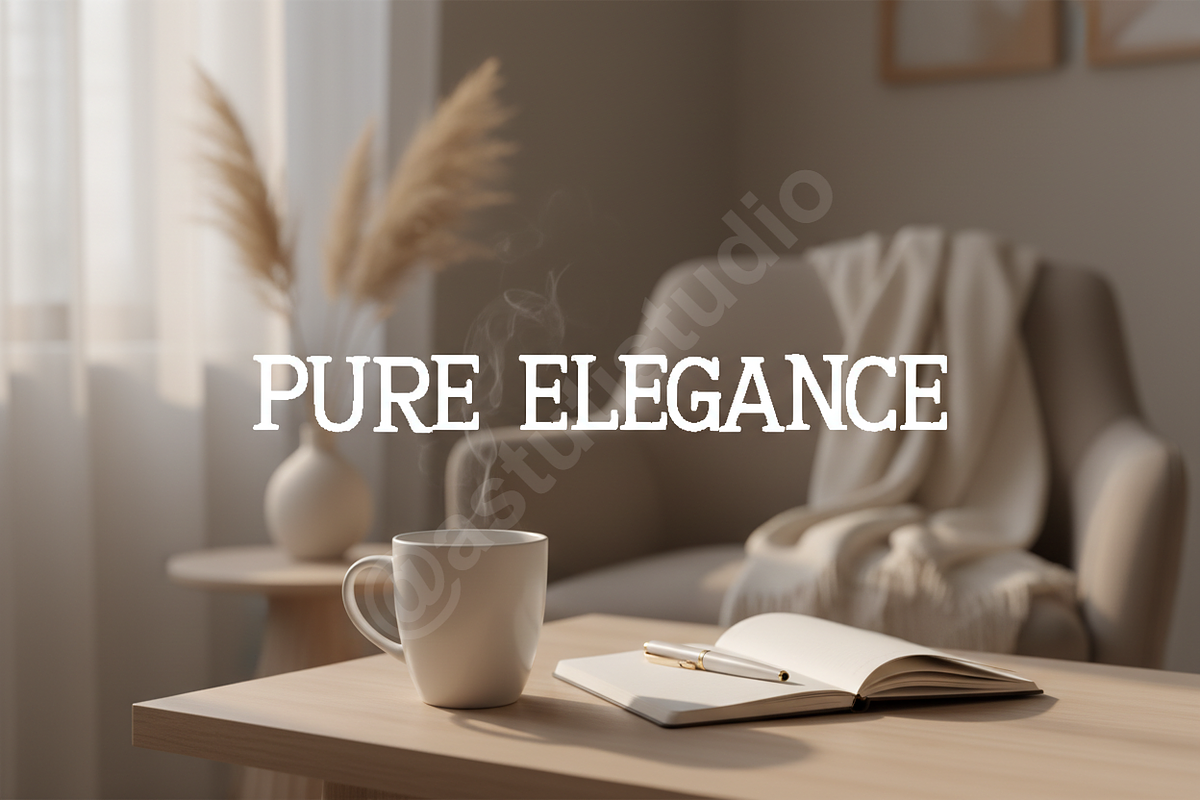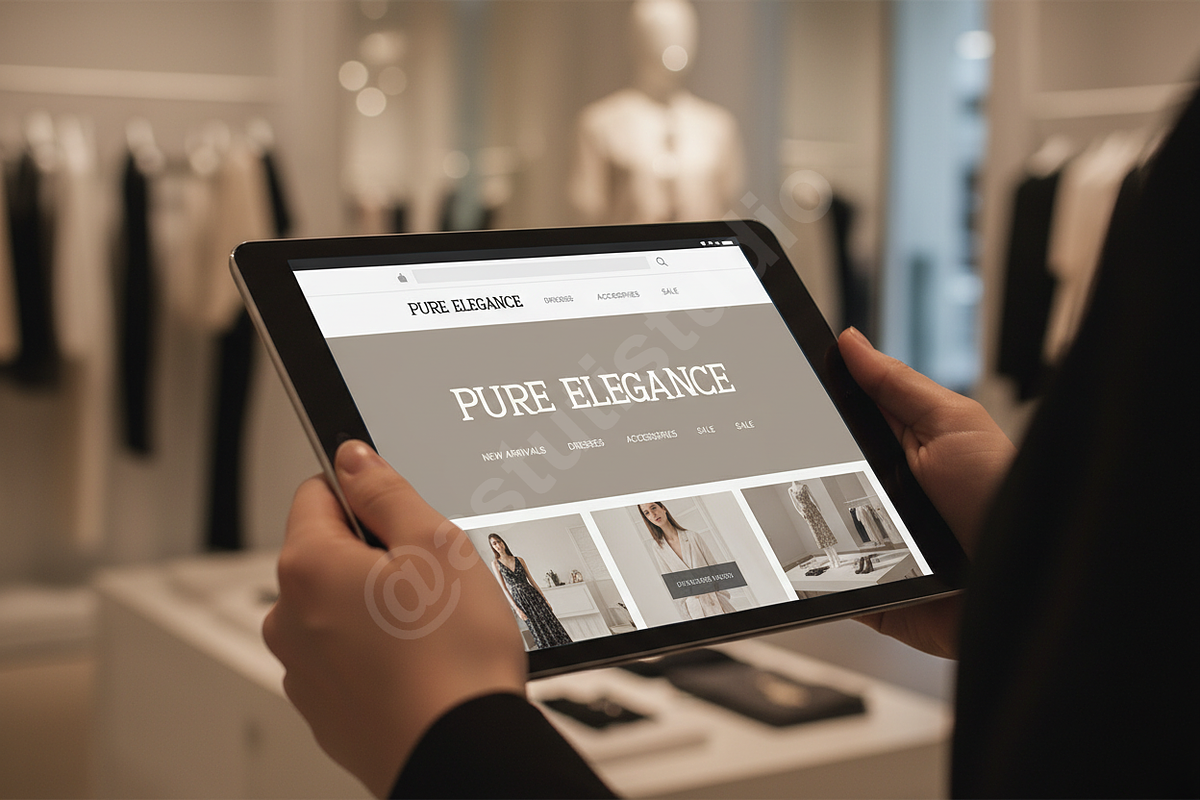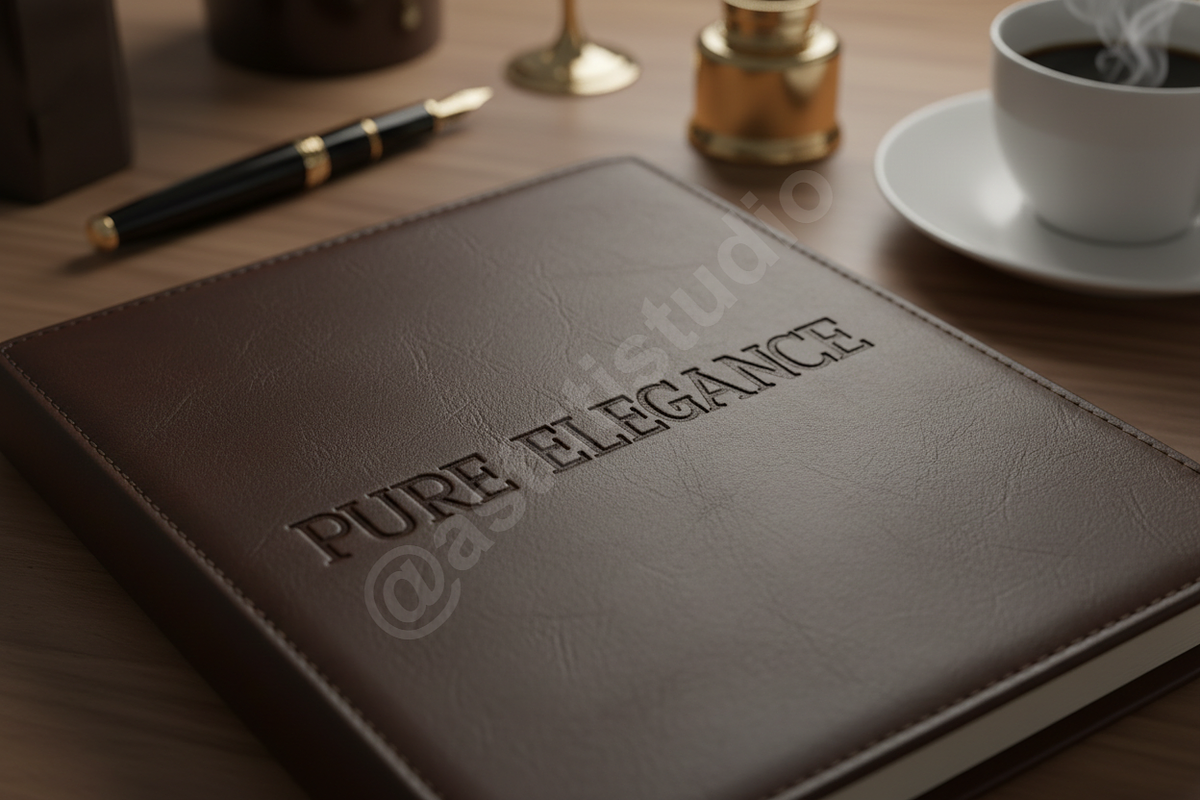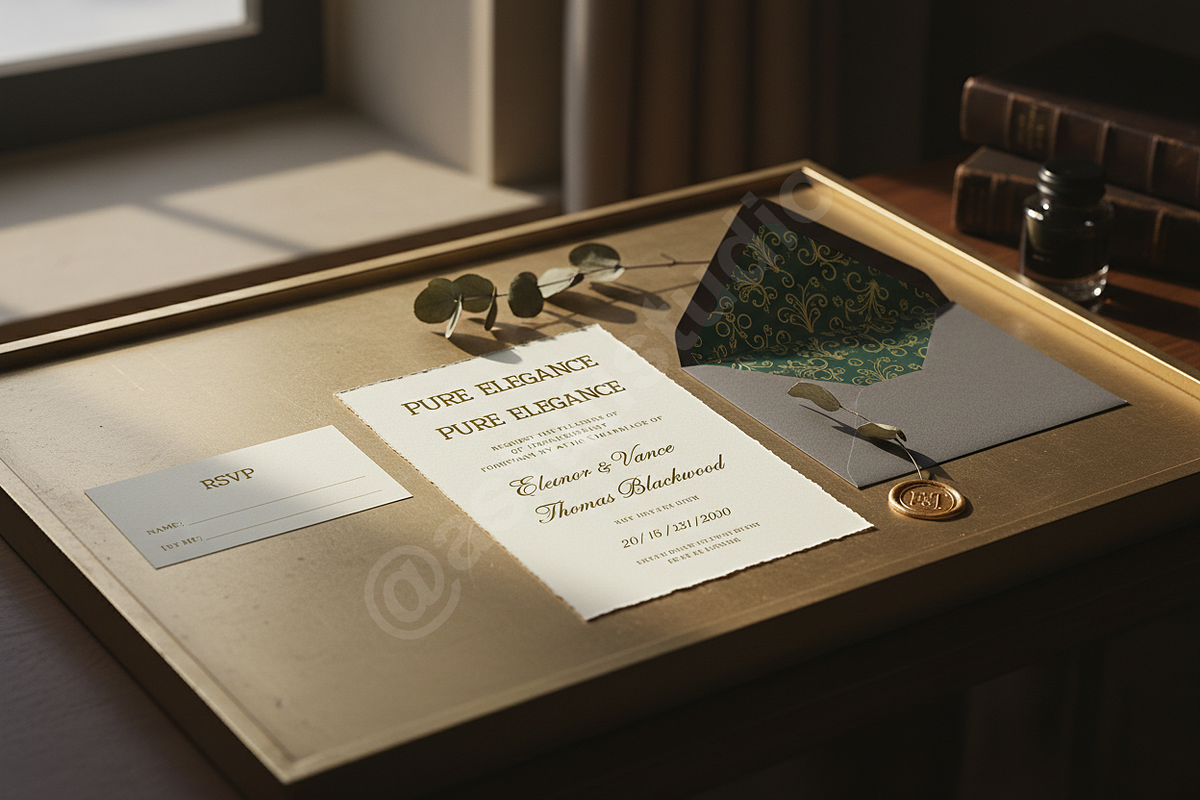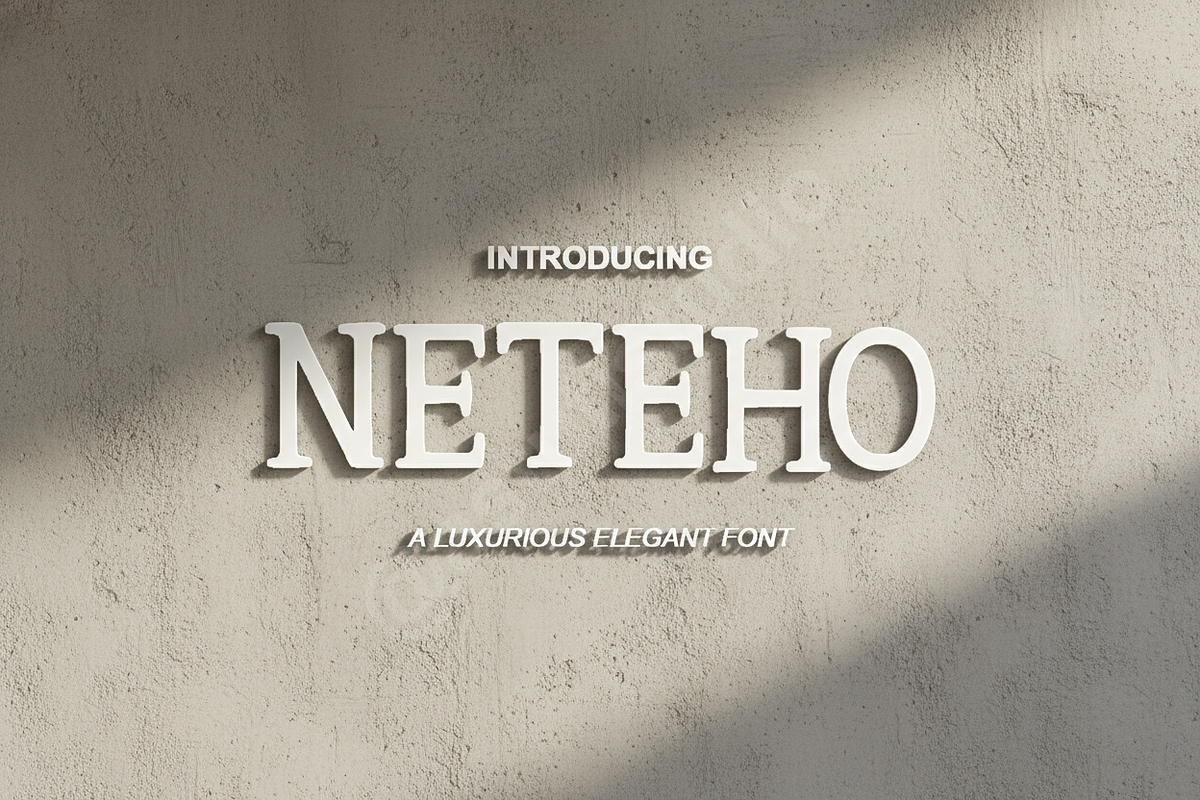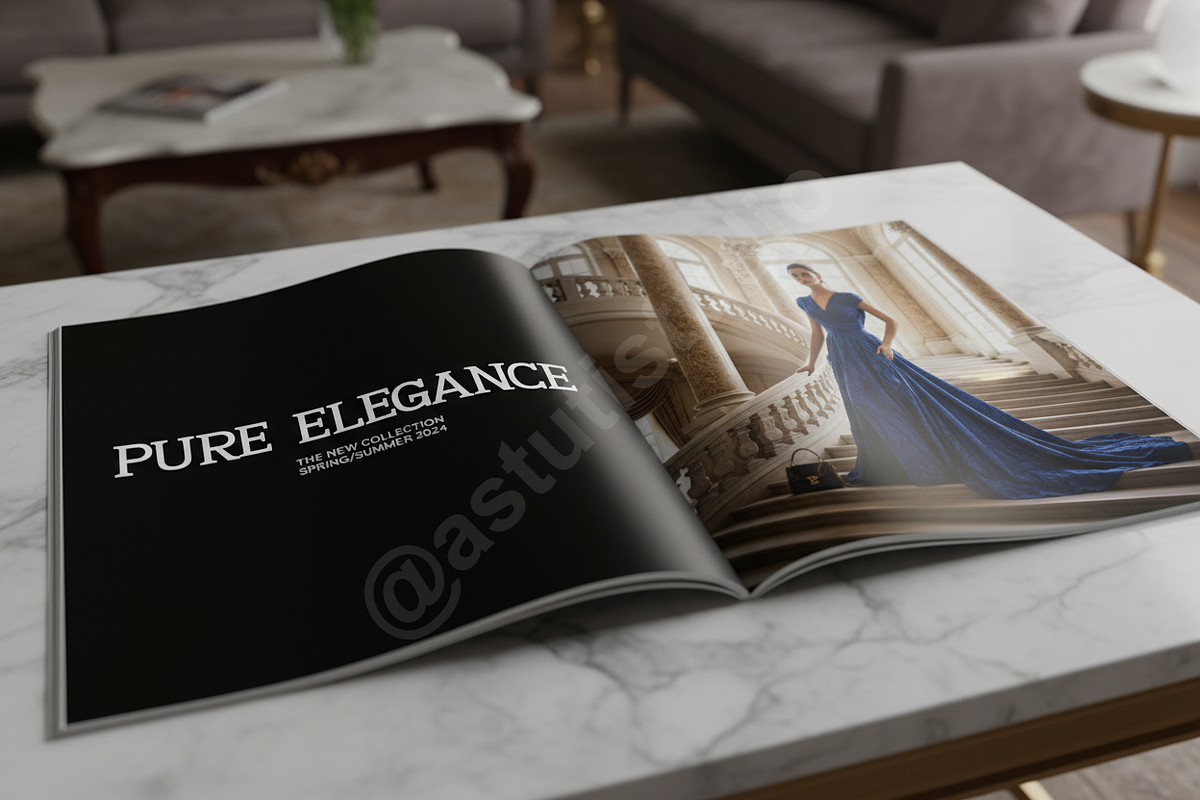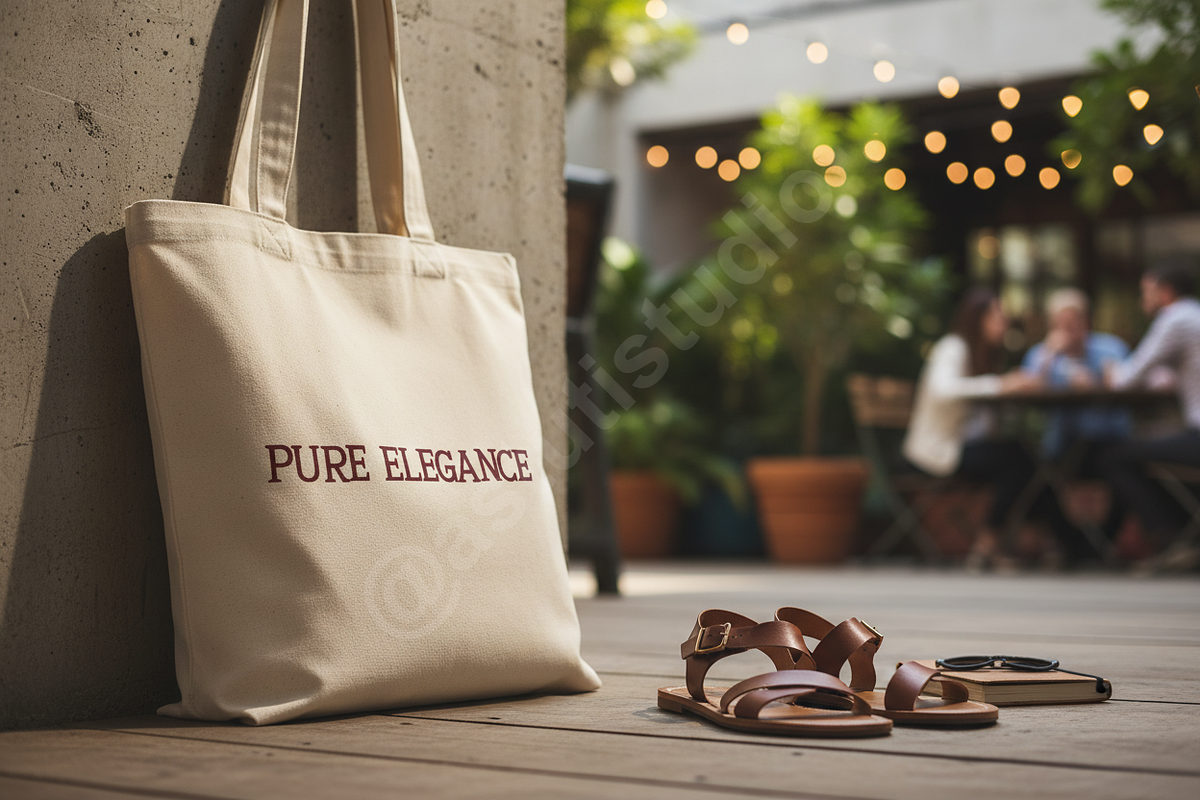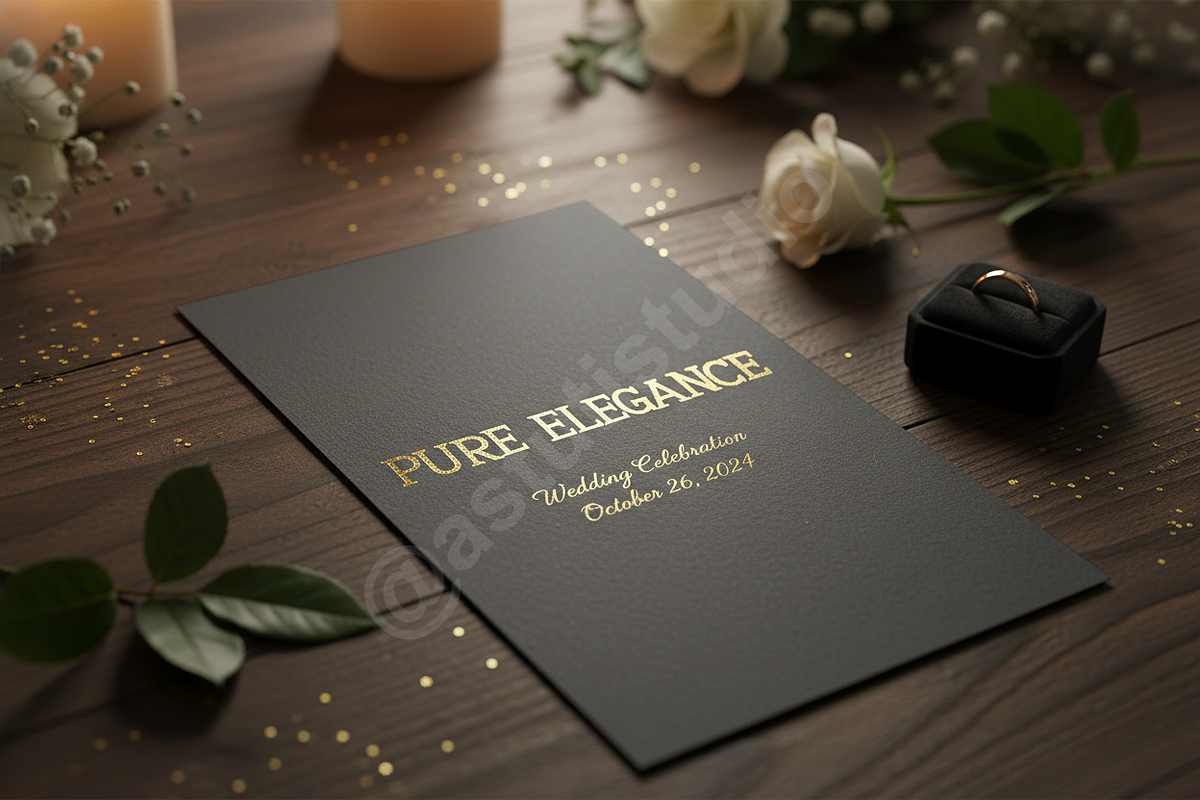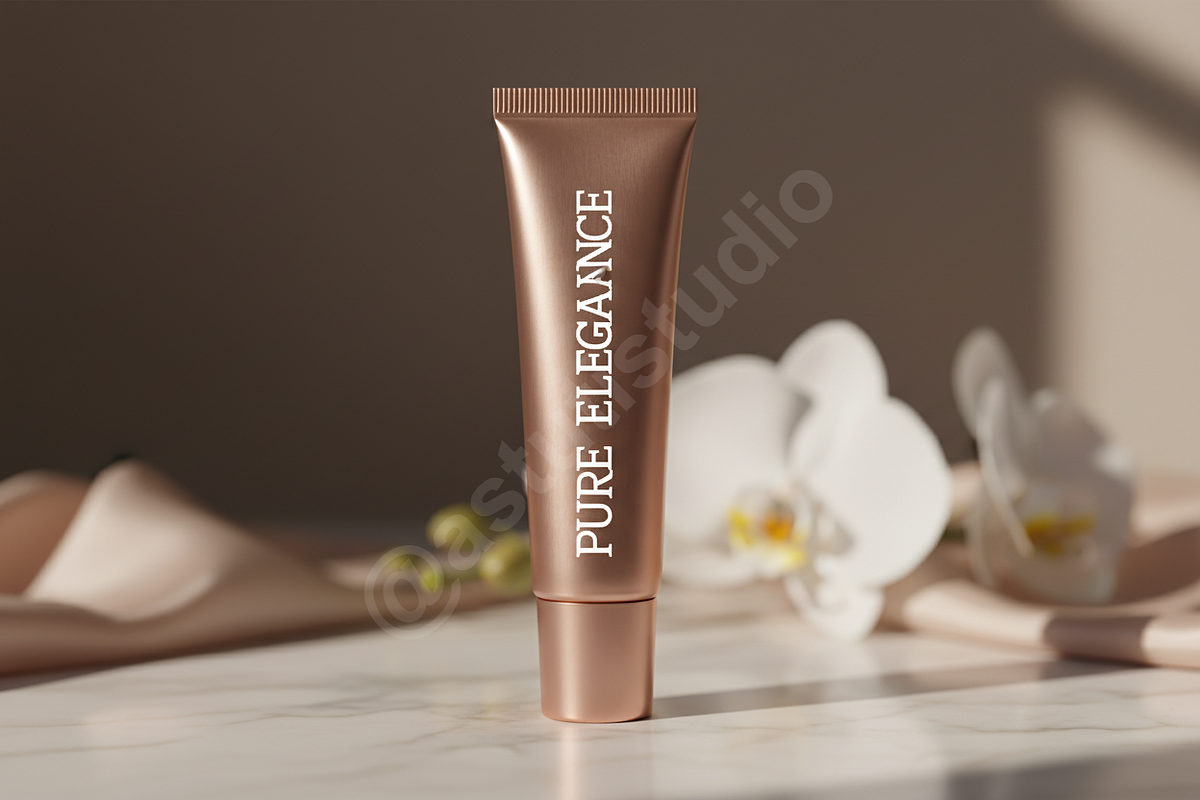
Neteho | Elegant Modern Serif Typefa
Neteho | Sophisticated Modern Serif Font
Introduction Neteho is a premium serif typeface meticulously crafted for high-end branding and editorial excellence. Its balanced proportions and refined details evoke a sense of timeless luxury, making it an essential tool for designers seeking a sophisticated aesthetic. Perfect for fashion magazines, luxury packaging, and elevated social media content, Neteho provides a clean yet distinctive presence.
- Clean and elegant letterforms with high contrast
- A wide range of unique ligatures and alternate characters
- Comprehensive multilingual support for global projects
- Optimized for both display and body text
- Perfect for luxury branding, editorial design, and social media
- Full set of uppercase and lowercase letters, numbers, and punctuation